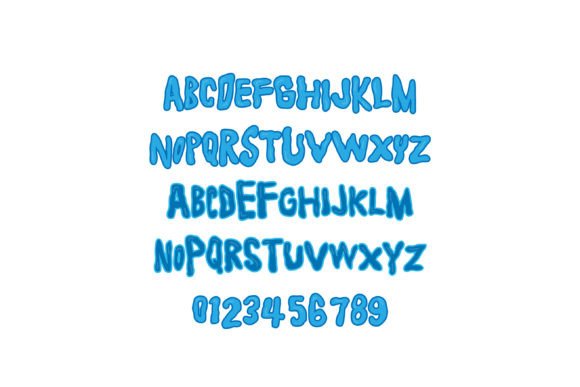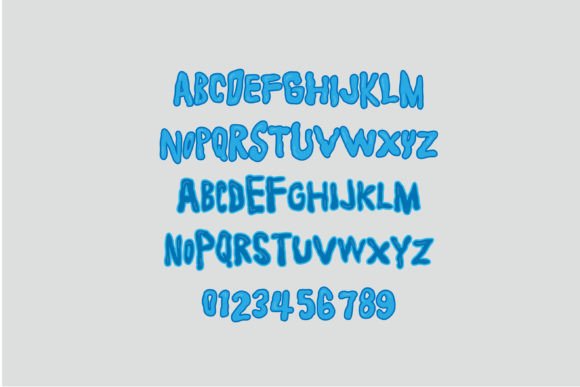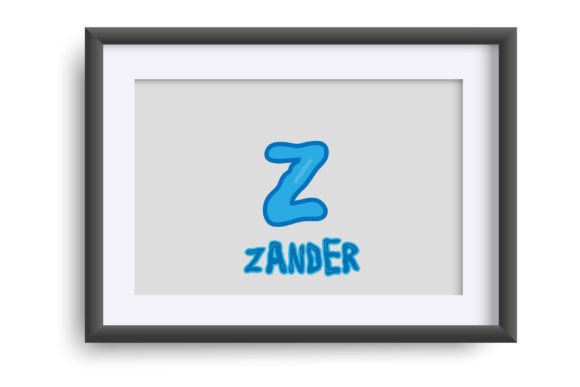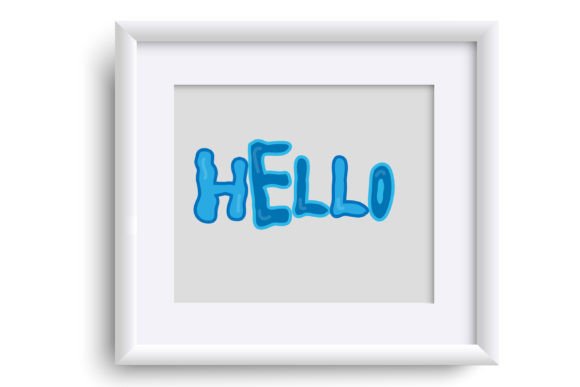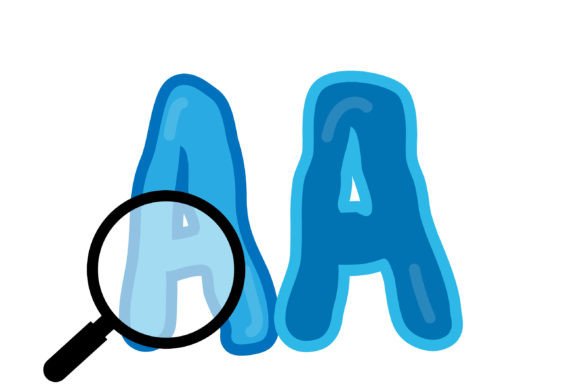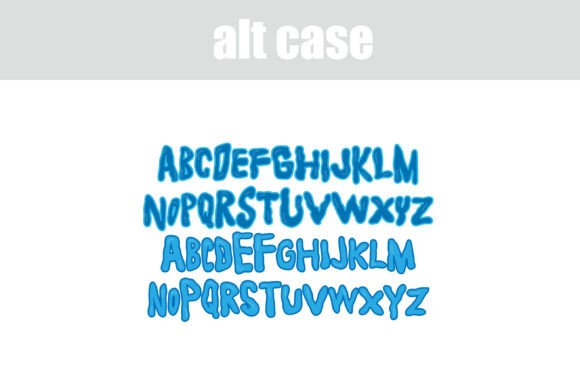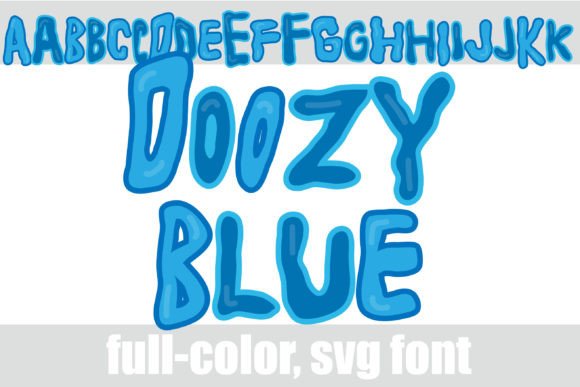
Introducing Doozy Blue Font: A Creative, Full-Color Font for Designers and Crafters
Are you looking for a unique and creative font to add a pop of color to your designs? Look no further than Doozy Blue Font, a full-color font that features a blue, wet color palette and a crafty, artistic vibe. This font is perfect for designers and crafters who want to add a touch of personality to their titles, displays, posters, and more.
What Makes Doozy Blue Font Special?
Doozy Blue Font is a full-color font that uses OpenType full-color (SVG) technology to deliver vibrant, high-quality colors. This font features a creative, hand-crafted design with a blue and wet color palette that’s perfect for creating eye-catching titles and displays. The font also includes an alt case with additional colors that can be accessed through your system or Silhouette’s glyph map.
Tips for Using Doozy Blue Font
Here are a few tips for getting the most out of Doozy Blue Font:
- Use it for titles and displays: Doozy Blue Font is perfect for creating eye-catching titles and displays that will grab attention.
- Experiment with colors: The font features a range of colors, so don’t be afraid to experiment and find the perfect combination for your design.
- Pair it with other fonts: Doozy Blue Font works well with other fonts, so try pairing it with a simple sans-serif font for a contrasting look.
Doozy Blue Font offers a range of benefits for designers and crafters, including:
- Unique and creative designs: The font’s full-color design and hand-crafted vibe make it perfect for creating unique and eye-catching designs.
- Versatile: Doozy Blue Font can be used for a range of projects, from titles and displays to posters and more.
Doozy Blue Font is a creative, full-color font that’s perfect for designers and crafters who want to add a touch of personality to their designs. With its blue, wet color palette and hand-crafted vibe, this font is sure to grab attention. Whether you’re using Silhouette Studio or another program that supports full-color SVG fonts, Doozy Blue Font is a great choice for anyone looking to create unique and eye-catching designs.